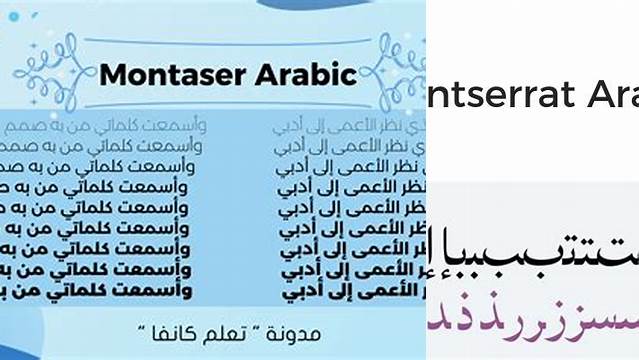
Montaser Font: An Introduction
The Montaser Arabic font family is a collection of typefaces known for its modern, clean lines and excellent readability. It's designed to work beautifully in a variety of contexts, from print to digital media. Its versatility makes it a favorite among designers working on branding, websites, and editorial projects. One of the reasons why the Montaser font family is so popular is its ability to strike a balance between traditional Arabic calligraphy and contemporary design aesthetics. This blend makes it appealing to a broad audience and suitable for projects aiming to connect with both modern and traditional sensibilities. When you're looking for a font that speaks volumes without being overwhelming, Montaser is often the go-to choice. Its clarity ensures that your message is conveyed effectively, whether it's a short headline or a lengthy paragraph of text.
Why Choose Montaser Arabic Font?
So, why should you choose the Montaser Arabic font over the countless other options out there? Well, it boils down to a few key factors. Firstly, its readability is top-notch, making it suitable for everything from body text to headlines. Secondly, its aesthetic appeal is undeniable – it strikes a perfect balance between modern and traditional, making it incredibly versatile. Thirdly, it often comes with a variety of weights and styles, giving you plenty of options to play with. When you use Montaser, you're not just picking a font; you're choosing a typeface that enhances your content and speaks to your audience. Think about how crucial readability is for a website; Montaser ensures that your visitors can easily digest your information. Or consider branding – the right font can make your brand feel more trustworthy and professional. The Montaser Arabic font family can do all of that and more, offering a blend of style and functionality that few other fonts can match. That's why it's a favorite among designers who demand both beauty and practicality in their work.
Using Montaser Font in Graphic Design
Now that you've successfully snagged your free download and installed the Montaser Arabic font family, let's talk about how to put it to good use in your graphic design projects. This font is incredibly versatile, making it suitable for a wide range of applications. Whether you're designing a logo, creating social media graphics, or laying out a brochure, Montaser can add a touch of elegance and sophistication. When using the font, pay attention to kerning and leading to ensure optimal readability. Experiment with different weights and styles to create visual hierarchy and add emphasis to key elements. Also, consider the overall aesthetic of your design and choose colors and imagery that complement the font's clean lines and modern feel. Remember, typography is a crucial element of design, and the Montaser Arabic font family can be a powerful tool in your arsenal. By mastering its nuances and understanding how to pair it with other design elements, you can create visually stunning and effective designs that resonate with your target audience.
Montaser Font for Web Design
Pairing Montaser with Other Fonts
One of the keys to effective typography is knowing how to pair fonts effectively. The Montaser Arabic font family pairs well with a variety of other fonts, both Arabic and Latin. When choosing a complementary font, consider the overall tone and style of your design. For a classic and elegant look, try pairing Montaser with a serif font like Times New Roman or Georgia. For a more modern and minimalist look, try pairing it with a sans-serif font like Arial or Helvetica. Experiment with different combinations to find what works best for your project. Also, pay attention to the visual hierarchy and use different font weights and sizes to create contrast and add emphasis. Remember, the goal is to create a harmonious and visually appealing design that effectively communicates your message. The Montaser Arabic font family can be a great starting point, and by carefully choosing a complementary font, you can create a truly stunning and effective design.
Alternatives to Montaser Arabic Font
If you're having trouble finding a free download of the Montaser Arabic font family or if it doesn't quite fit your needs, there are plenty of other great Arabic fonts to choose from. Some popular alternatives include Adobe Arabic, Simplified Arabic, and Arial Unicode MS. Each of these fonts has its own unique characteristics and strengths. Adobe Arabic is a classic choice that's known for its readability and versatility. Simplified Arabic is a more modern and minimalist font that's great for web design. And Arial Unicode MS is a widely available font that supports a wide range of characters and languages. When choosing an alternative font, consider the overall tone and style of your design and choose a font that complements your other design elements. Also, pay attention to licensing and make sure you're allowed to use the font for your intended purposes. With so many great Arabic fonts to choose from, you're sure to find one that's perfect for your project.